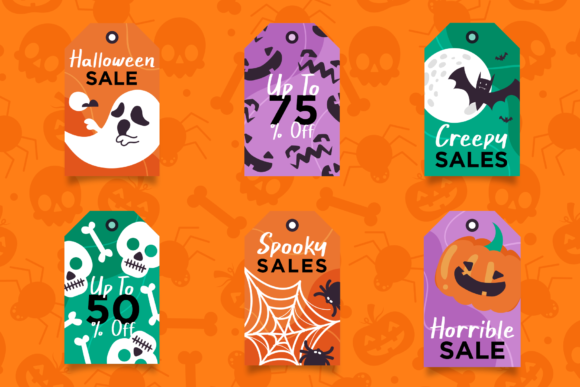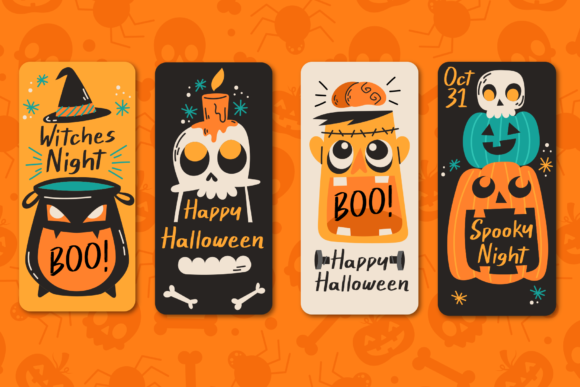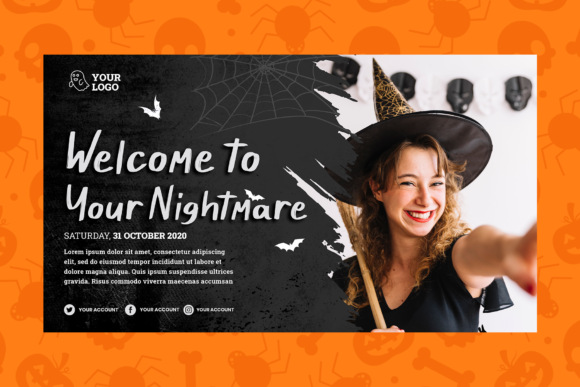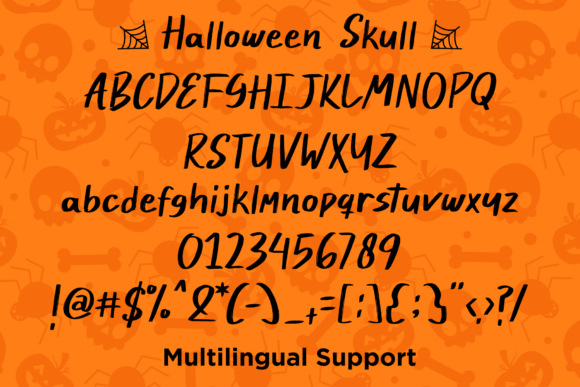
Unleash the Spook: Elevate Your Halloween Designs with the Halloween Skull Font
As the spookiest time of the year approaches, designers and crafters are on the lookout for the perfect typography to add a haunting touch to their Halloween-themed projects. Look no further than the Halloween Skull Font, an incredibly unique and spooky display font designed to elevate your creations from ordinary to extraordinary.
The Perfect Addition to Your Halloween Arsenal
The Halloween Skull Font is more than just a font – it’s a statement piece. Its eerie and eye-catching design is sure to grab attention and leave a lasting impression on your audience. Whether you’re working on t-shirts, sportswear, logos, advertisements, clothing, or any other Halloween-themed project, this font is the perfect addition to your design arsenal.
With the Halloween Skull Font, the design possibilities are endless. Here are just a few ideas to get you started:
- T-Shirts and Apparel: Create spooky and stylish t-shirts, hoodies, and other apparel that will make your friends and customers scream with delight.
- Logos and Branding: Add a touch of horror to your logo or branding, perfect for haunted houses, horror movies, or Halloween-themed businesses.
- Advertisements: Make your Halloween ads stand out with a font that’s sure to grab attention and send chills down your audience’s spine.
- Clothing and Accessories: Design Halloween-themed clothing and accessories, such as hats, scarves, and bags, that will make your customers look and feel spooky.
- Stationery and Invitations: Add a haunting touch to your Halloween stationery and invitations, perfect for parties, trick-or-treating, or other spooky celebrations.
Why Choose the Halloween Skull Font?
So why choose the Halloween Skull Font over other fonts? Here are just a few reasons:
- Unique Design: The Halloween Skull Font features a one-of-a-kind design that’s sure to stand out from the crowd.
- High-Quality: This font is designed with high-quality and clarity in mind, ensuring that it looks great on any device or medium.
- Versatile: This font is versatile and can be used for a wide range of design projects, from personal to commercial.
Tips for Using the Halloween Skull Font
Here are a few tips for using the Halloween Skull Font in your designs:
- Pair with Other Fonts: Pair the Halloween Skull Font with other fonts to create a unique and eye-catching design.
- Keep it Simple: Don’t be afraid to keep your design simple and let the font be the star of the show.
- Have Fun: Most importantly, have fun and get creative with your design!
The Halloween Skull Font is a must-have for any designer or crafter looking to add a spooky touch to their Halloween-themed projects. With its unique design, high-quality, and versatility, this font is sure to elevate your creations and leave a lasting impression on your audience. So why wait? Download the Halloween Skull Font today and start creating your own spooky masterpieces!